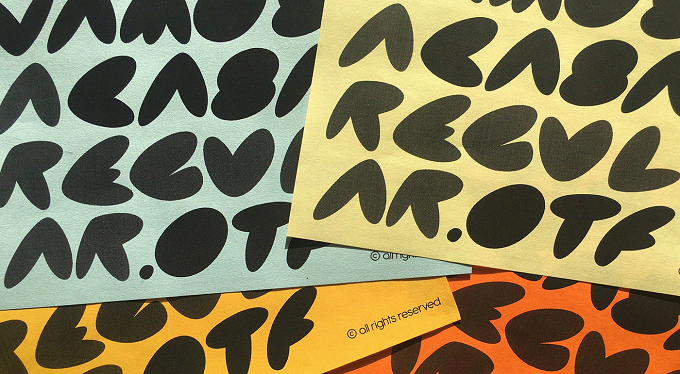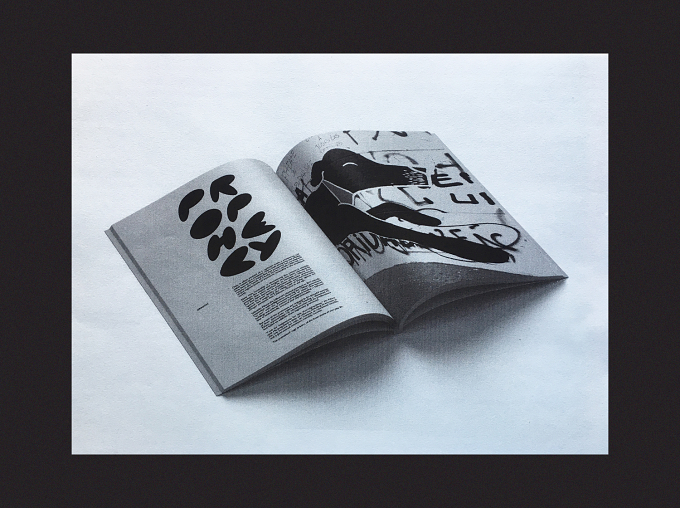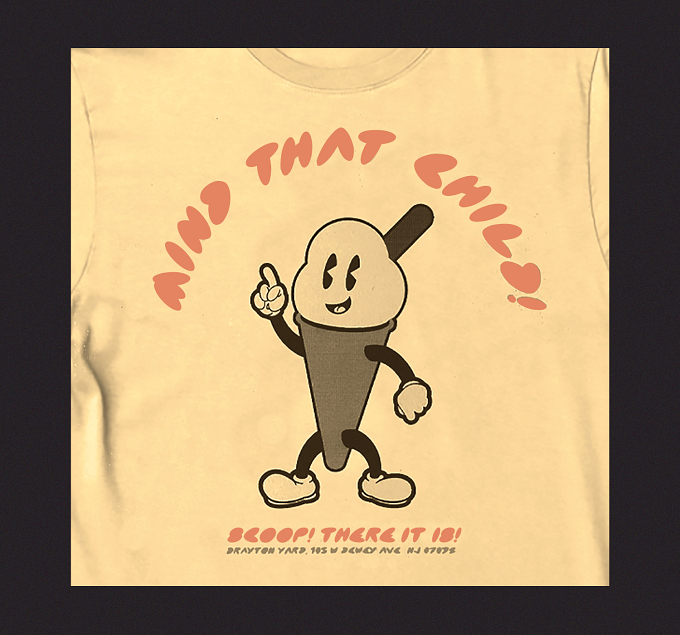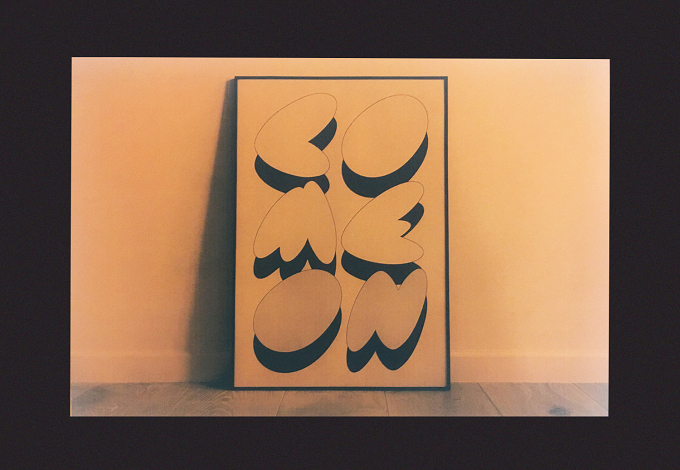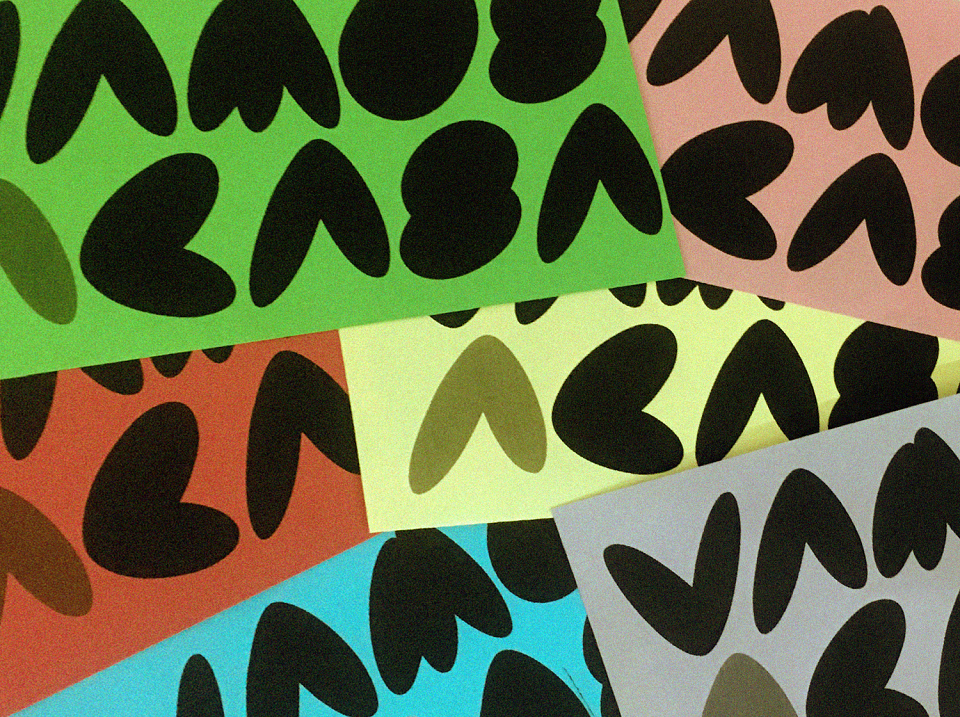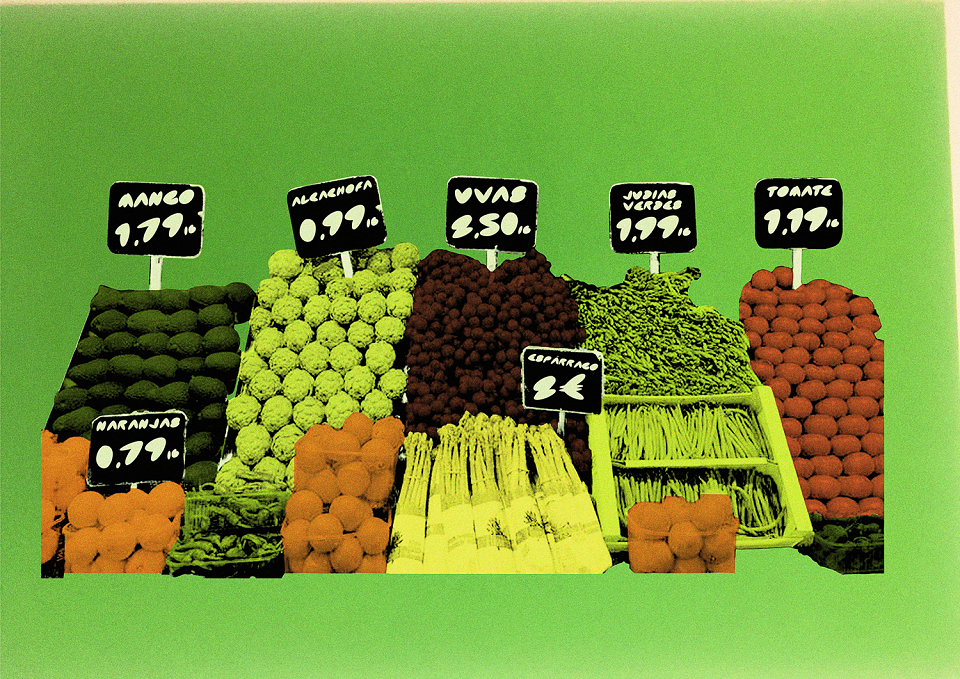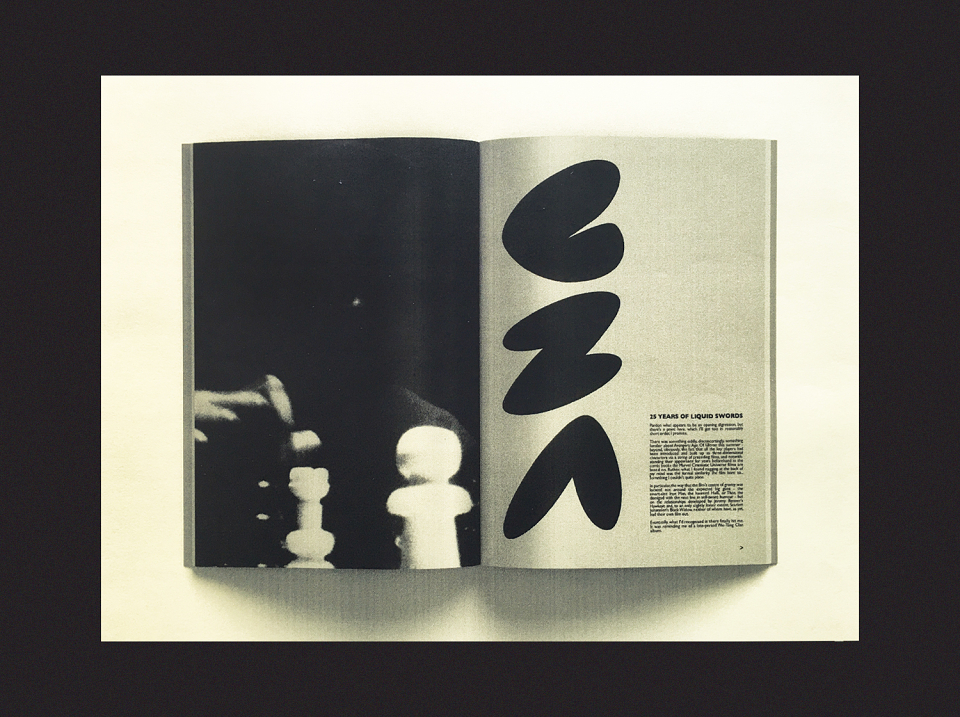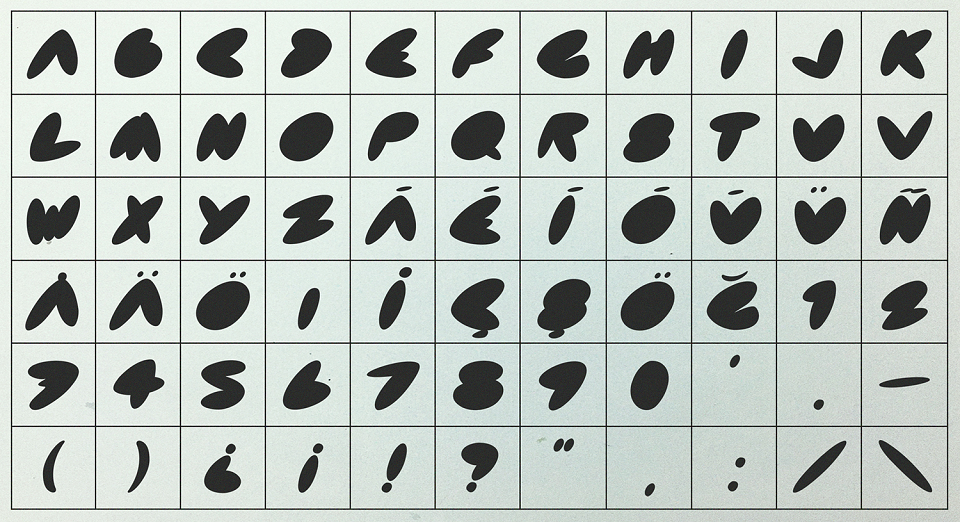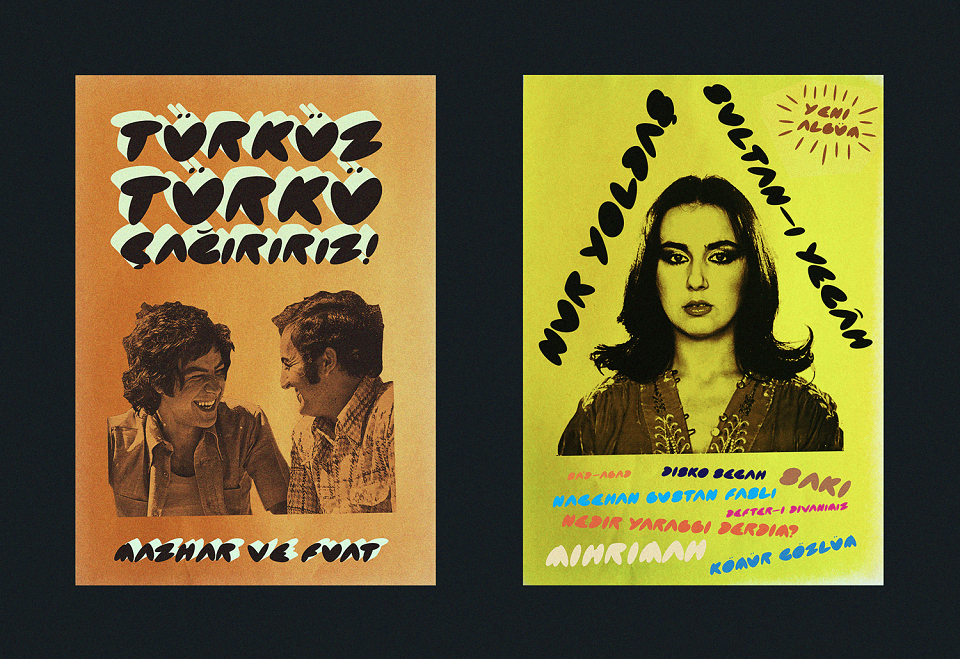
Headline font that I developed in the second half of 2019. I envisaged a bold typeface that could have myriad different uses- displays, animation, poster layout, adaptation for apparel- there are many possibilities. The characters are stretched and seemingly ad hoc- pushed to the limits of legibility, but always legible up close and from a distance. This font can be put to use at either end of the creative spectrum.
Inspiration was taken from different sources- countercultural typography of Oz magazine, ad-hoc fruit & veg labelling and early bubble characters that emerged from the NY graffiti scene of the seventies.
This font is distinctive and irreverent and can be adapted for a surprisingly diverse number of uses.
Vamos a Casa / Display Font